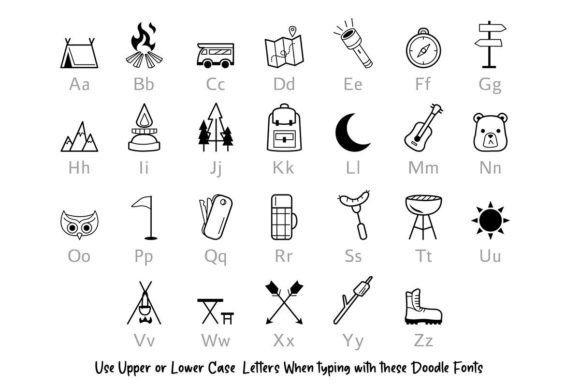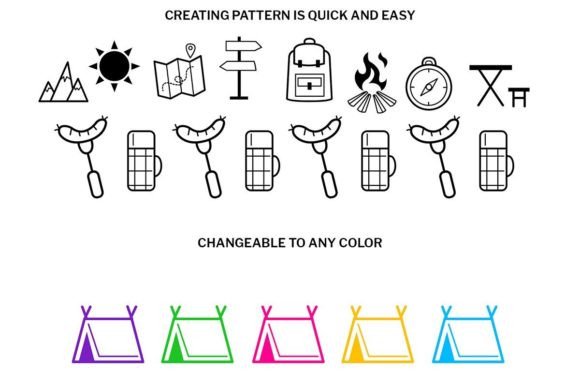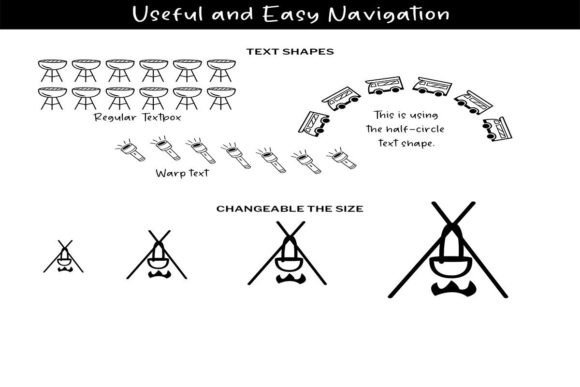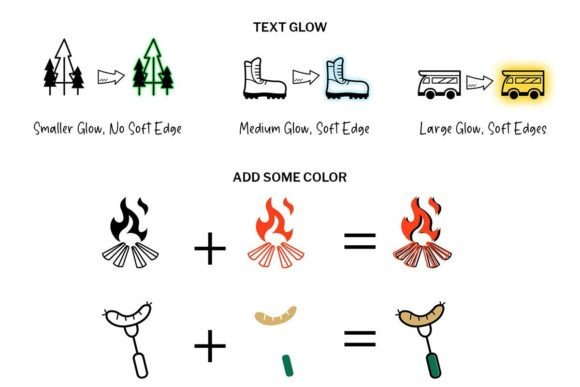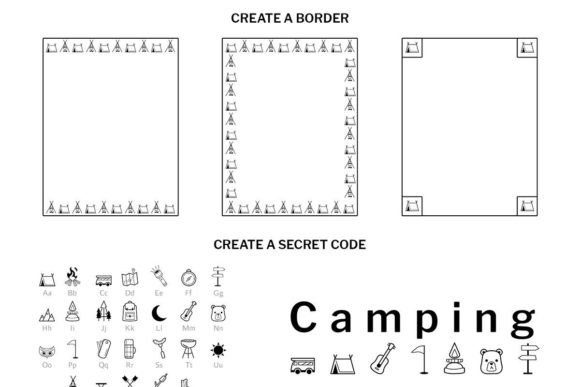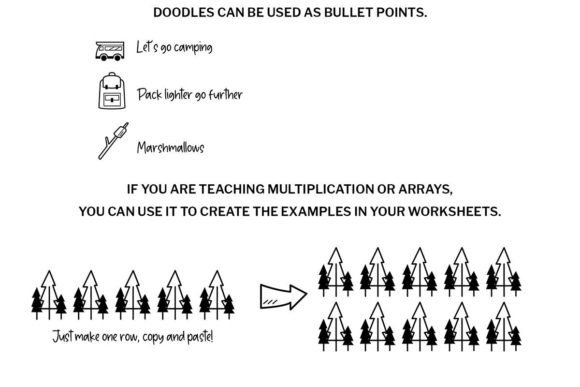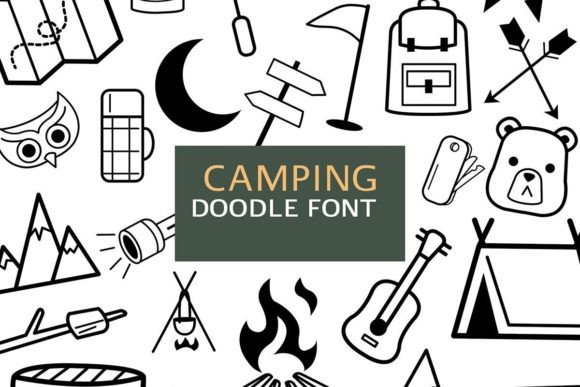
Camping Doodle Font: Unleash Your Creativity with this Fun and Versatile Dingbat Font
Are you a designer, crafter, or DIY enthusiast looking for a unique and playful font to add a personal touch to your projects? Look no further than the Camping Doodle Font! This delightful dingbat font is perfect for anyone who loves the great outdoors, camping, and all things adventurous. In this article, we’ll dive into the world of Camping Doodle Font, exploring its features, uses, and benefits, and show you how to make the most of this fantastic font.
What is Camping Doodle Font?
Camping Doodle Font is a fun and cute dingbat font designed to bring a touch of whimsy and playfulness to your designs. Its versatility makes it an excellent choice for a wide range of craft projects, designs, planners, diaries, activity books, and more. Whether you’re creating a camping-themed planner, a kids’ activity book, or a set of outdoor-inspired stickers, Camping Doodle Font is the perfect companion.
Key Features of Camping Doodle Font
- Fun and playful design: Camping Doodle Font features a delightful collection of doodle-style illustrations, including camping-themed icons, animals, and outdoor symbols.
- Versatile and adaptable: Use Camping Doodle Font to create a wide range of projects, from planners and diaries to stickers, activity books, and more.
- Scalable and editable: Camping Doodle Font is designed to be scalable and editable, allowing you to adjust the size and style to suit your project’s needs.
Uses for Camping Doodle Font
Camping Doodle Font is an incredibly versatile font that can be used in a variety of projects, including:
- Camping and outdoor-themed designs: Create camping-themed stickers, posters, and planners that showcase your love for the great outdoors.
- Kids’ activity books and educational resources: Use Camping Doodle Font to create engaging and interactive activity books, worksheets, and educational resources for kids.
- Planners and diaries: Add a touch of personality to your planners and diaries with Camping Doodle Font’s playful illustrations.
- Stickers and washi tape: Design custom stickers and washi tape featuring Camping Doodle Font’s adorable illustrations.
- Digital and print-on-demand products: Use Camping Doodle Font to create unique digital and print-on-demand products, such as printable art, journals, and more.
Benefits of Using Camping Doodle Font
So, why choose Camping Doodle Font for your next project? Here are just a few benefits of using this fantastic font:
- Adds a personal touch: Camping Doodle Font’s playful illustrations add a personal touch to your designs, making them more engaging and relatable.
- Versatile and adaptable: This font can be used in a wide range of projects, making it an excellent addition to your design toolkit.
- Unique and eye-catching: Camping Doodle Font’s unique illustrations will help your designs stand out from the crowd.
Tips and Tricks for Using Camping Doodle Font
To get the most out of Camping Doodle Font, here are a few tips and tricks to keep in mind:
- Experiment with different sizes and colors: Don’t be afraid to experiment with different sizes and colors to find the perfect combination for your project.
- Mix and match with other fonts: Combine Camping Doodle Font with other fonts to create a unique and visually appealing design.
- Use it to add visual interest: Use Camping Doodle Font to add visual interest to your designs, such as in headings, subheadings, or body text.
Camping Doodle Font is a fun, versatile, and playful dingbat font that’s perfect for designers, crafters, and DIY enthusiasts. With its wide range of uses, ease of use, and unique illustrations, this font is sure to become a favorite in your design toolkit. So why not give Camping Doodle Font a try and unleash your creativity today?